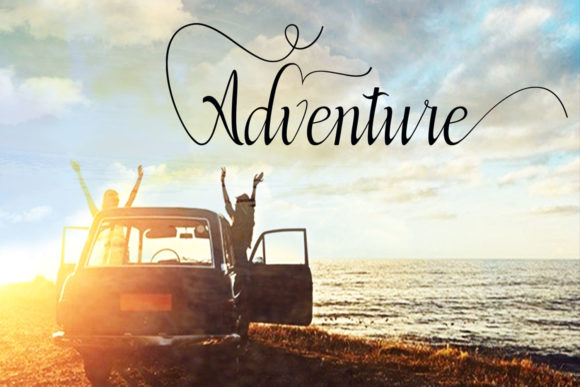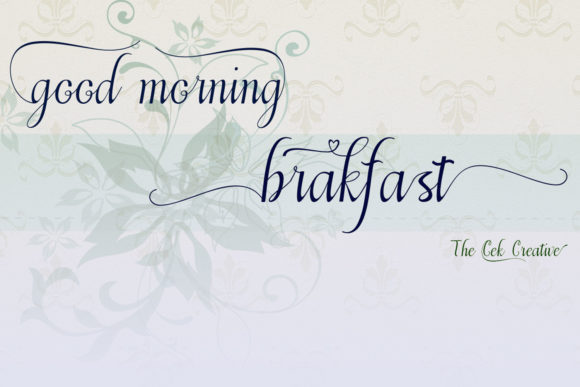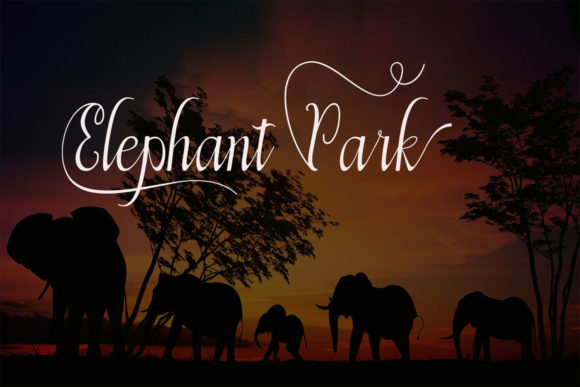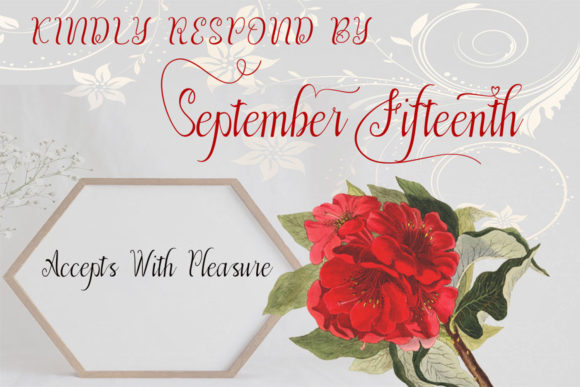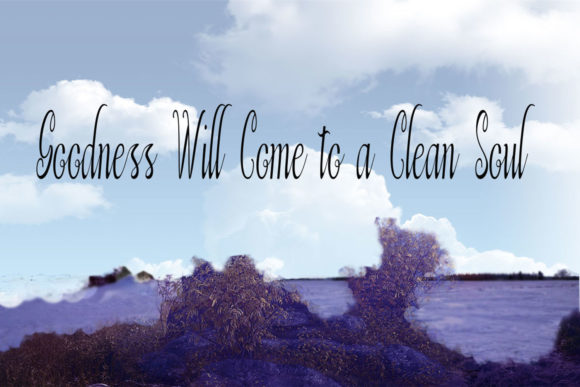
Introducing Beulaga Font: The Ultimate Handwritten Font for Creative Projects
Are you tired of using the same old fonts for your creative projects? Look no further! Beulaga Font is here to revolutionize your designs with its fun and amazing handwritten style. This stunning font is perfect for designers, crafters, and anyone looking to add a personal touch to their work.
What Makes Beulaga Font So Special?
Beulaga Font is a one-of-a-kind handwritten font that is sure to make your creative projects stand out. Its bold swashes and unique lettering style give it a distinctive look that is both elegant and playful. Whether you’re working on a branding project, crafting a logo, or creating social media graphics, Beulaga Font is the perfect choice.
The Power of Handwritten Fonts
Handwritten fonts have a way of adding a personal touch to any design. They evoke feelings of warmth, friendliness, and approachability. Beulaga Font takes this to the next level with its bold and confident style. Its handwritten letters are carefully crafted to give your designs a unique and authentic look.
Features of Beulaga Font
• Unique Handwritten Style: Beulaga Font boasts a distinctive handwritten style that sets it apart from other fonts.
• Bold Swashes: The font’s bold swashes add a touch of elegance and sophistication to any design.
• Easy to Read: Despite its bold style, Beulaga Font is easy to read and understand, making it perfect for body text and headings.
• Highly Versatile: Beulaga Font can be used for a wide range of creative projects, from branding and logos to social media graphics and crafts.
• Pair it with Other Fonts: Beulaga Font pairs well with other fonts, so don’t be afraid to experiment with different combinations.
• Use it for Headings: Beulaga Font’s bold style makes it perfect for headings and titles.
• Add Swashes: Take advantage of Beulaga Font’s bold swashes to add a touch of elegance to your designs.
Why Designers and Crafters Love Beulaga Font
Beulaga Font has quickly become a favorite among designers and crafters. Here are a few reasons why:
• Unique Style: Beulaga Font’s unique style sets it apart from other fonts, making it perfect for designers and crafters looking to stand out.
• Easy to Use: The font is easy to use and works seamlessly with popular design software.
• High-Quality: Beulaga Font is a high-quality font that is designed to deliver exceptional results.
In conclusion, Beulaga Font is a fun and amazing handwritten font that is perfect for creative projects. Its bold swashes and unique lettering style make it a standout font that is sure to turn heads. Whether you’re a designer, crafter, or simply looking for a new font to add to your collection, Beulaga Font is a must-have.